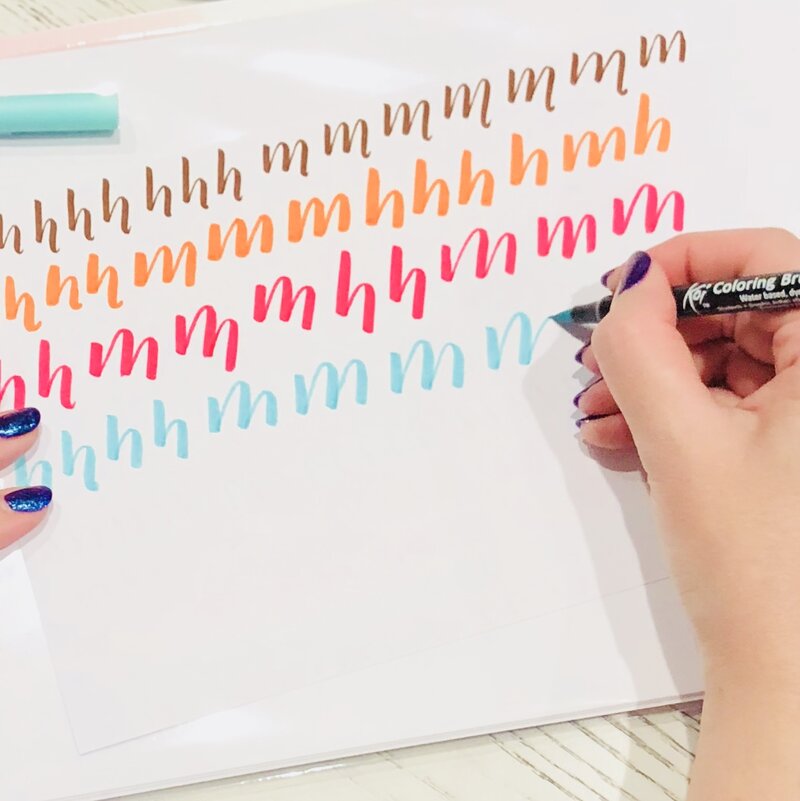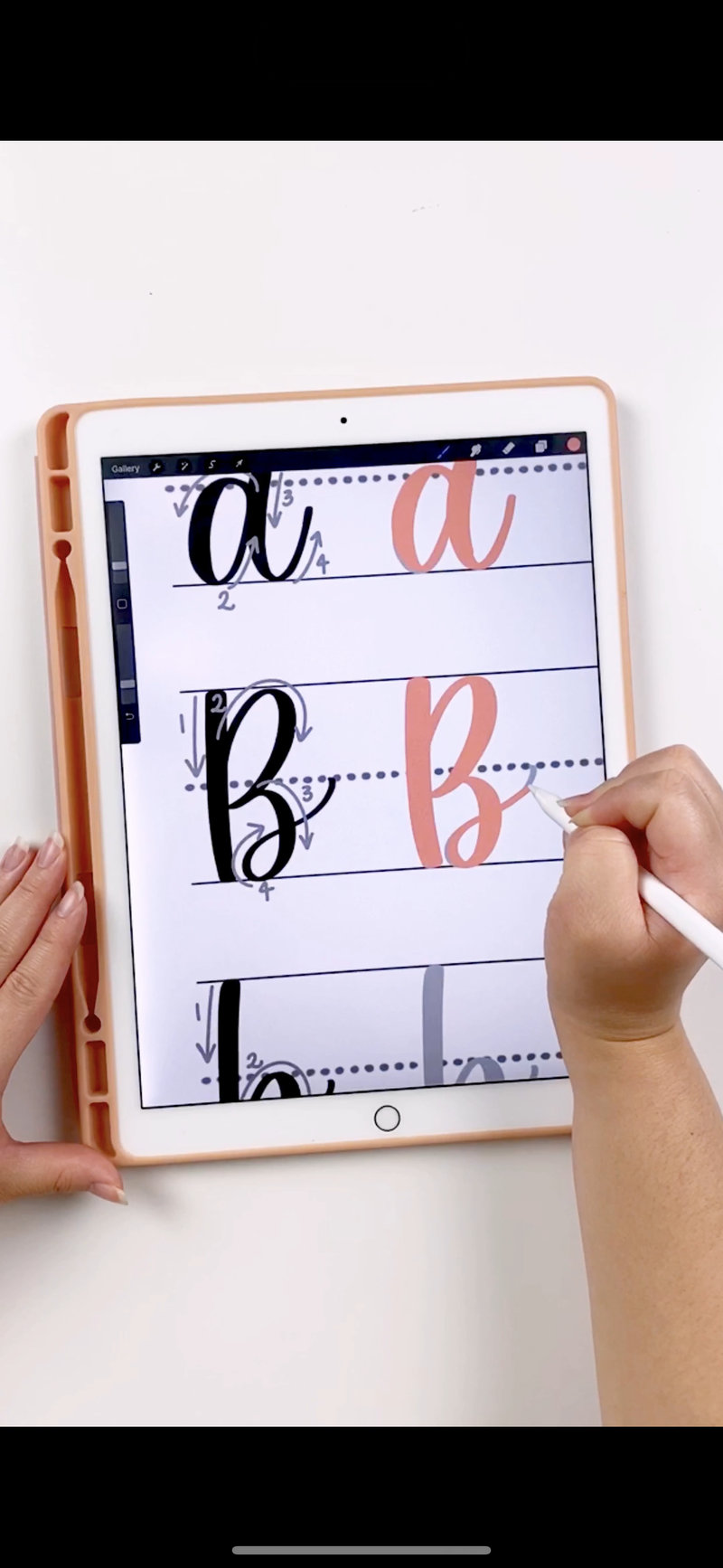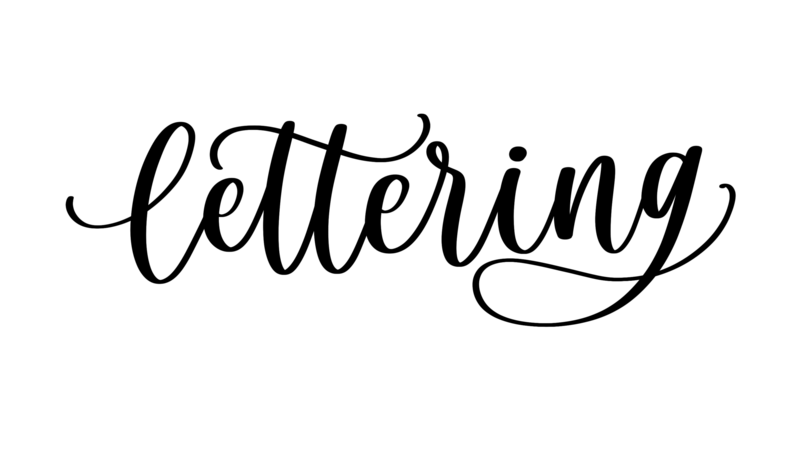
a few fun ways to learn lettering with me! 🤗 whether you're just starting or ready to explore your unique style, here are some creative ways we can letter together:
Beginner's Lettering Course
Relaunching Early 2026 in BOTH Brush Lettering and iPad Lettering 🖌️✨ It’s finally happening! 🥰 After years of teaching workshops around the world, I’m bringing my beginner-friendly lettering course online, with a fun twist 🎉 Designed to feel like we’re learning together in person, this course covers everything from the lettering basics to building your confidence step by step 🤗 Whether you’re brand new or just getting started, I’ll guide you through this journey in a way that’s fun, encouraging, and totally doable 💖 Let’s finally learn lettering together!! 🤩✨
Once you’ve got the basics down, it’s time to find your lettering style ✏️ This course is designed to help you intentionally explore different lettering styles so you can stop guessing and start creating with confidence! You’ll practice 12+ lettering styles from bouncy and loose to simple monoline and learn how to add flourishes, embellishments and experiment with layouts that actually feel like you 🥰 With step by step video lessons, guided practice sheets, lifetime access and a clear system for choosing what to practice next, you’ll finally understand why you like certain styles and how to build a lettering style that feels natural, fun and personal ✨
If you’ve ever loved lettering but felt stuck, inconsistent, or unsure what to create, this is your next step 💫
Find Your Lettering Style Course
Self-Guided Lettering Sheets
Prefer to learn at your own pace? I created these affordable practice sheets as a fun, low-pressure way to start lettering on your own terms 💫 From beginner basics to bouncy and simple styles, you’ll get to explore many of the same techniques from my courses, just in a self-guided format at your own pace 🤗 Perfect for trying things out and building confidence one page at a time! 💖✨
The Brush Lettering Kit
Want everything you need to start lettering delivered to your door? 🖌️📦 Introducing my Ultimate Brush Lettering Kit ✨ It’s packed with my 144-page workbook, a brush pen sampler, premium lettering paper, and exclusive goodies designed by me 🥰 Whether you're just getting started or want a fun way to dive deeper, this kit has everything you need to learn lettering with confidence at home 💖 This kit is perfect for gifting (or treating yourself) 🤭💗
In-Person Lettering Workshops
Come hang out with me for a fun and beginner-friendly Modern Brush Lettering workshop 🤗🖌️ We’ll cover all the basics like brush strokes, drills, connecting letters, and playful styles like bouncy lettering and faux calligraphy 💫 You’ll get my ultimate workbook, favorite brush pens, lettering paper, a custom name tag, and extra goodies too 💖 I only host a few of these each year, so if you’ve been wanting to learn in a creative and supportive space, this is your chance! ✨